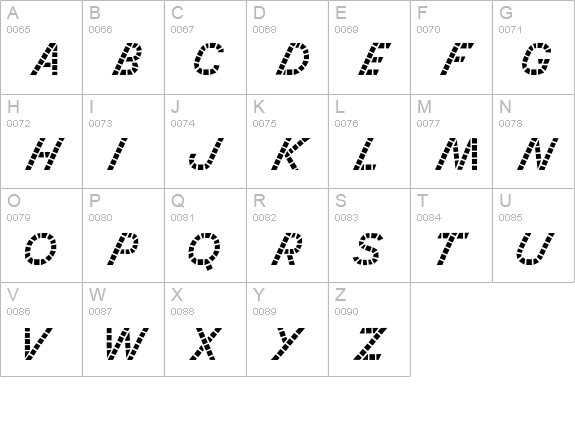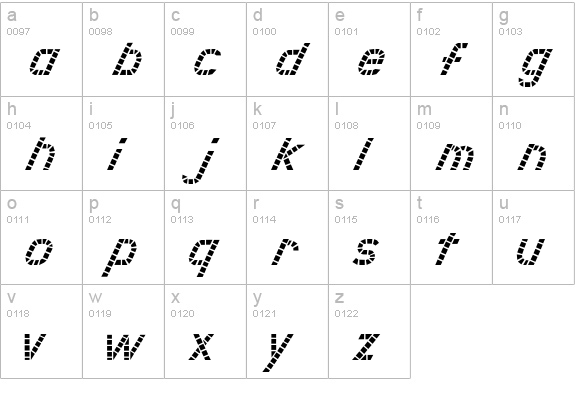
UnionSquareRightSlant Font Details
UnionSquareRightSlant is a stylish and sleek font that adds a touch of sophistication to any project. Its unique right slant design adds a modern and contemporary feel, making it perfect for branding, logos, headlines, and more. The slanted angles give the font a dynamic and energetic look, capturing attention and making a strong visual impact. This font is not only visually appealing but also highly legible, ensuring that your message is communicated effectively. The well-crafted letterforms are perfectly balanced, creating a harmonious and seamless flow of text. Whether used in print or digital media, UnionSquareRightSlant will elevate the overall design and leave a lasting impression. One of the best aspects of UnionSquareRightSlant is that it is freely available to download at FontsMarket.com. This means that you can effortlessly access and use this font in all your creative projects without any cost. Whether you are a professional designer or a hobbyist, you can easily take advantage of the unique and captivating qualities of UnionSquareRightSlant. With its modern and sleek design, UnionSquareRightSlant is a versatile font that can be used in various contexts. It works seamlessly in both bold and subtle designs, making it suitable for a wide range of applications. From eye-catching advertisements to elegant wedding invitations, this font will add a touch of sophistication and refinement to any project. Download UnionSquareRightSlant for free at FontsMarket.com and unlock the potential to create stunning and impactful designs. The freedom to use this font without any restrictions allows you to explore your creativity and bring your ideas to life. Don't miss out on the opportunity to enhance your designs with UnionSquareRightSlant and make a lasting impression on your audience.